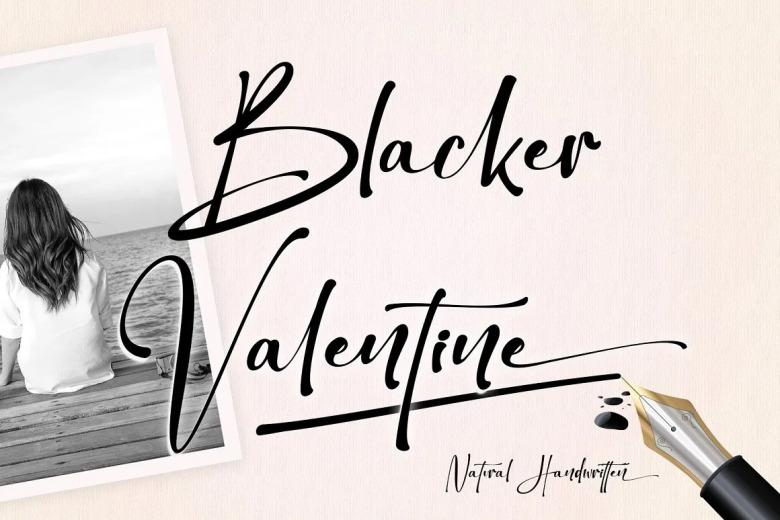
Blacker Valentine Font
Blacker Valentine is an elegant and neat handwritten font. This amazing font is perfect for many design ideas, Christmas themes, valentine’s, posters, invitations, weddings, branding projects, social media posts, products, and magazines, and books.
Blacker Valentine Handwritten Script Font